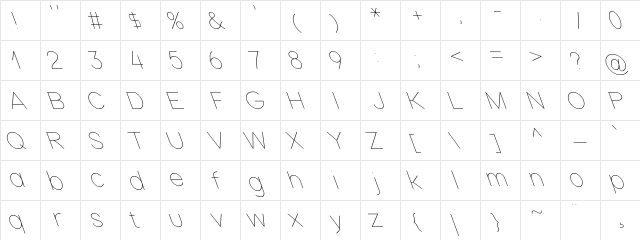
Nordica Plus NordicaClassicUltraLightOpObl
Design Context for Nordica Plus Typeface
Nordica Plus wears its vintage influences proudly, with letterforms that recall mid-century signage, classic packaging, and nostalgia-driven design. Its slender proportions lend an understated elegance to any composition.
Ideal for diner signage, record shop branding, 70s/80s-themed projects, and heritage product labels.
Font Pairing: Combine Nordica Plus with a simple slab or neutral sans — period-accurate companions reinforce the vintage feel without competing for attention.
Pro Tip: Lean into Nordica Plus's period character by pairing it with aged paper textures, muted colour palettes, and vintage illustration styles.